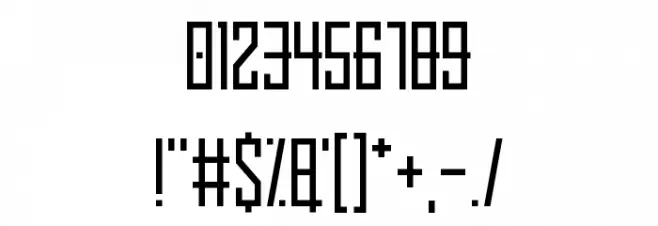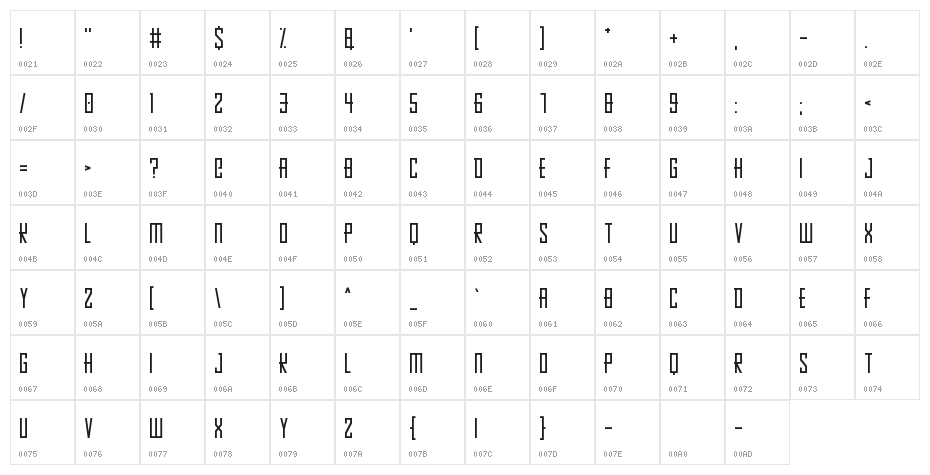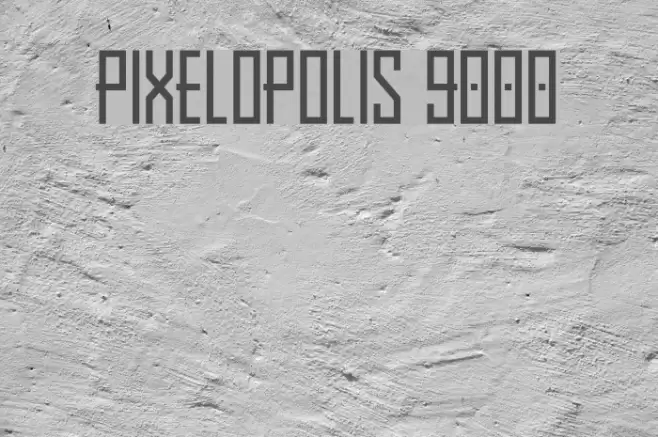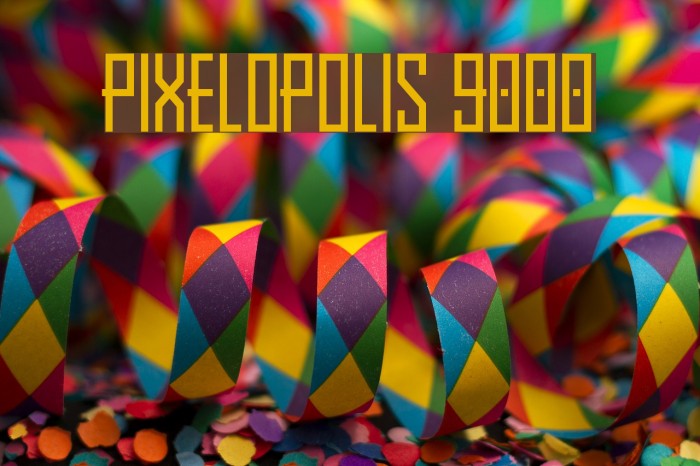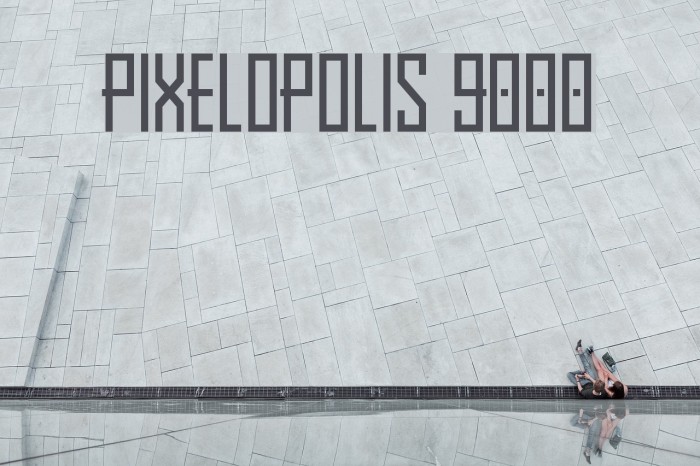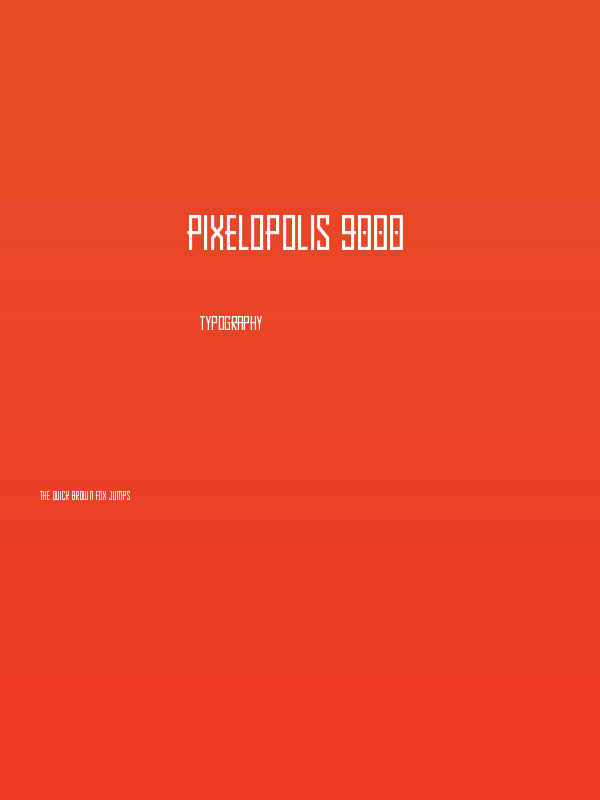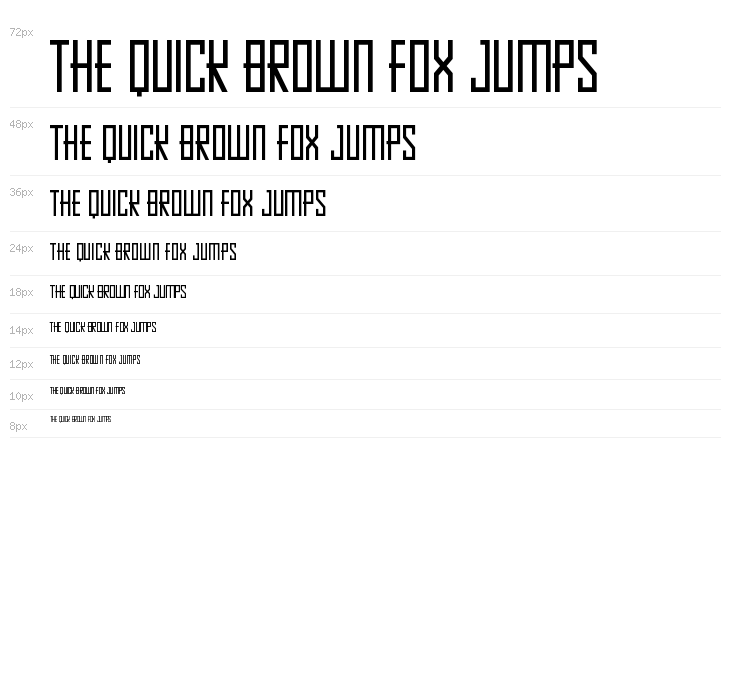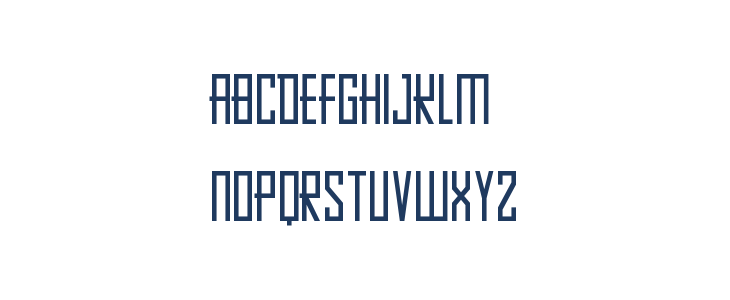
Pixelopolis 9000 Font
Pixelopolis 9000 Description
This font features a futuristic and geometric design, characterized by its blocky and angular letterforms. The characters are constructed with straight lines and sharp angles, giving it a digital and modern appearance. The uppercase and lowercase letters maintain a consistent height, creating a uniform look across the typeface. The numerals and special characters follow the same design principles, ensuring cohesion throughout. The font's style is reminiscent of retro digital displays, making it suitable for projects that require a tech-inspired or sci-fi aesthetic. Its clean and precise lines make it highly legible, even at smaller sizes.